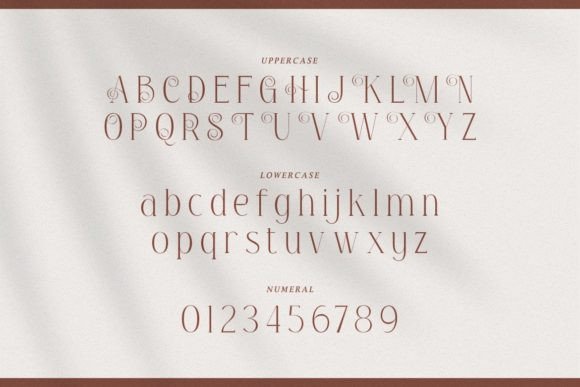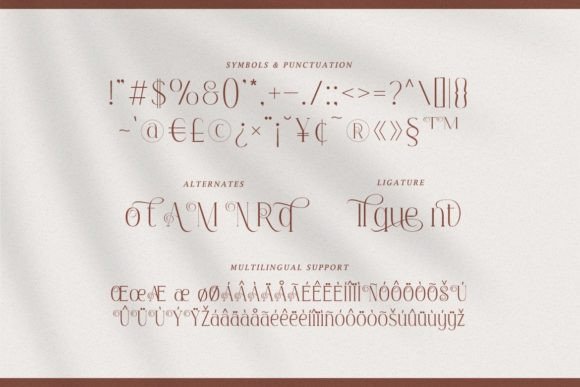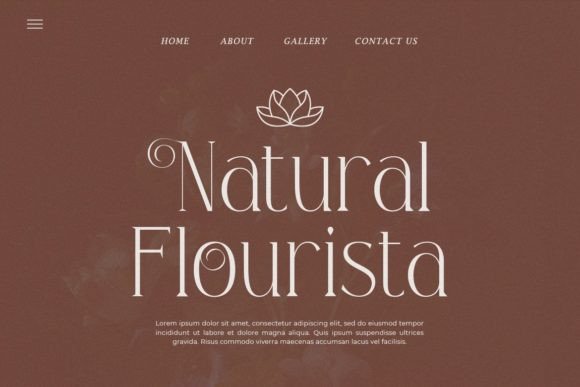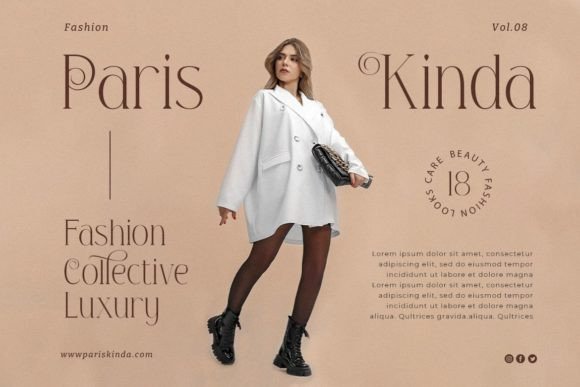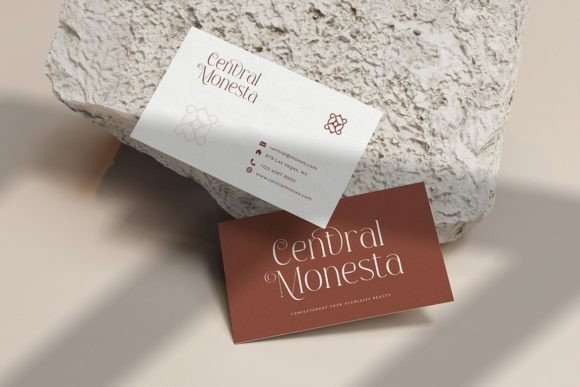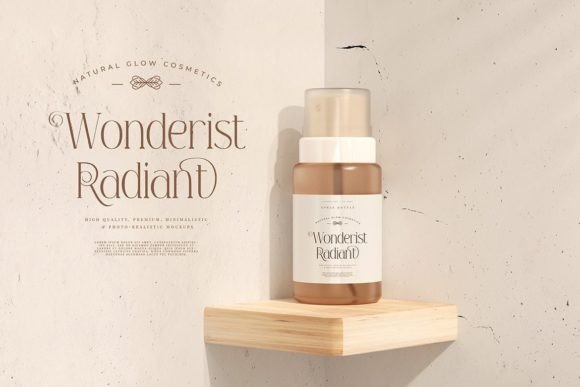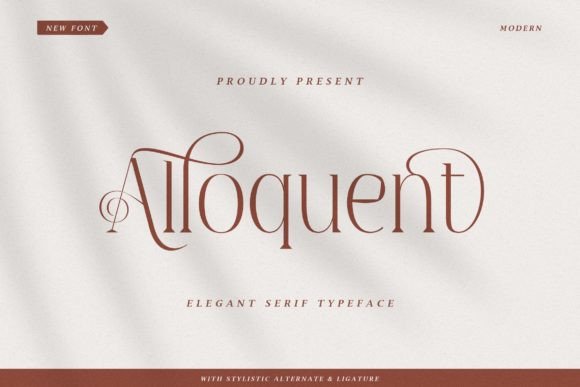
Introducing Alloquent Font: Elevate Your Designs with Elegance and Versatility
In the world of typography, the right font can make all the difference in elevating your design from ordinary to extraordinary. For designers and crafters seeking a sophisticated and versatile typeface, Alloquent Font is an exceptional choice. This elegant serif font seamlessly blends traditional influences with a contemporary aesthetic, making it perfect for a wide range of projects.
The Essence of Alloquent Font
Alloquent Font is characterized by its refined and luxurious appearance, making it ideal for designs that demand a touch of sophistication. Its elegant craftsmanship ensures that it can be effortlessly paired with a vast array of projects, from high-end branding and editorials to packaging and digital media. Whether you’re aiming for a subtle yet impactful look or seeking maximum versatility, Alloquent Font is up to the task.
Key Features of Alloquent Font
- Elegant Serif Design: Alloquent boasts a classic serif design with a modern twist, offering the perfect balance between tradition and innovation.
- Versatility: Its versatile nature makes it suitable for a broad spectrum of projects, ensuring that your designs always look polished and refined.
- PUA Encoding: Alloquent Font is PUA (Private Use Area) encoded, which means you can easily access all the glyphs and ligatures, adding an extra layer of creativity to your work.
- Exquisite and Subtle: With Alloquent, you can achieve an exquisite look that’s not overpowering but rather subtly sophisticated, allowing your content to shine.
Applications of Alloquent Font
The applications of Alloquent Font are vast and varied. Here are some of the areas where it truly shines:
- Branding and Logotypes: Create a lasting impression with a logo that exudes elegance and professionalism.
- Editorials and Magazines: Add a touch of luxury to your publications with a font that commands respect and attention.
- Packaging: Elevate your product packaging with a sophisticated typeface that stands out on the shelves.
- Digital Media: From websites to mobile apps, Alloquent Font ensures a premium user experience across all digital platforms.
Why Choose Alloquent Font?
In a sea of fonts, Alloquent stands out for several reasons:
- Unique Aesthetic: It offers a unique blend of traditional and modern elements, making your designs instantly recognizable.
- Ease of Use: Thanks to its PUA encoding, accessing the full range of glyphs and ligatures is straightforward, saving you time and effort.
- Support for Multiple Languages: Alloquent Font supports multiple languages, making it a versatile choice for global brands and projects.
Alloquent Font is more than just a typeface; it’s a design statement. Its elegant serif design, combined with its versatility and PUA encoding, makes it an invaluable asset for designers and crafters looking to create sophisticated and impactful work. Whether you’re working on a high-end brand campaign, a luxury editorial, or any project that demands a touch of elegance, Alloquent Font is the perfect choice. Elevate your designs with a font that blends the best of traditional influences with a contemporary aesthetic, and experience the difference that a superior typeface can make.